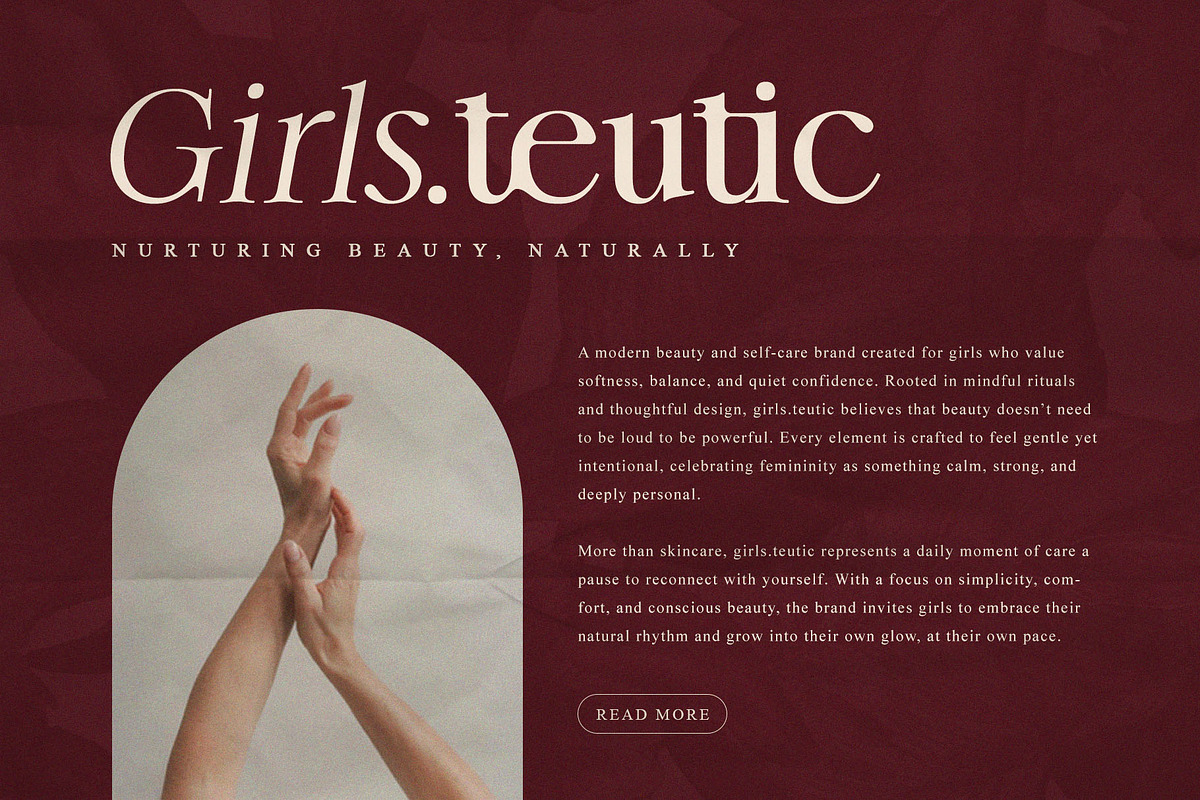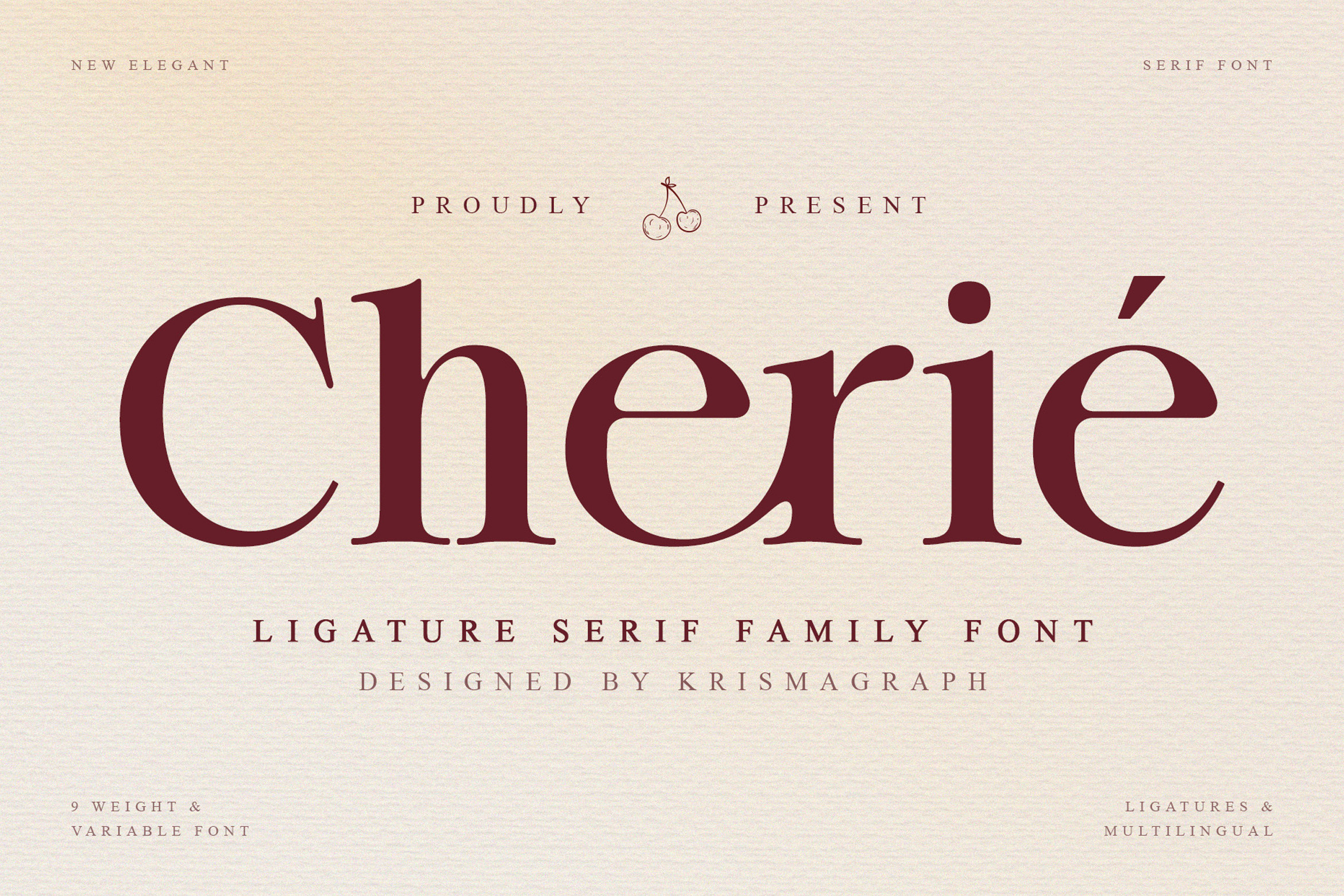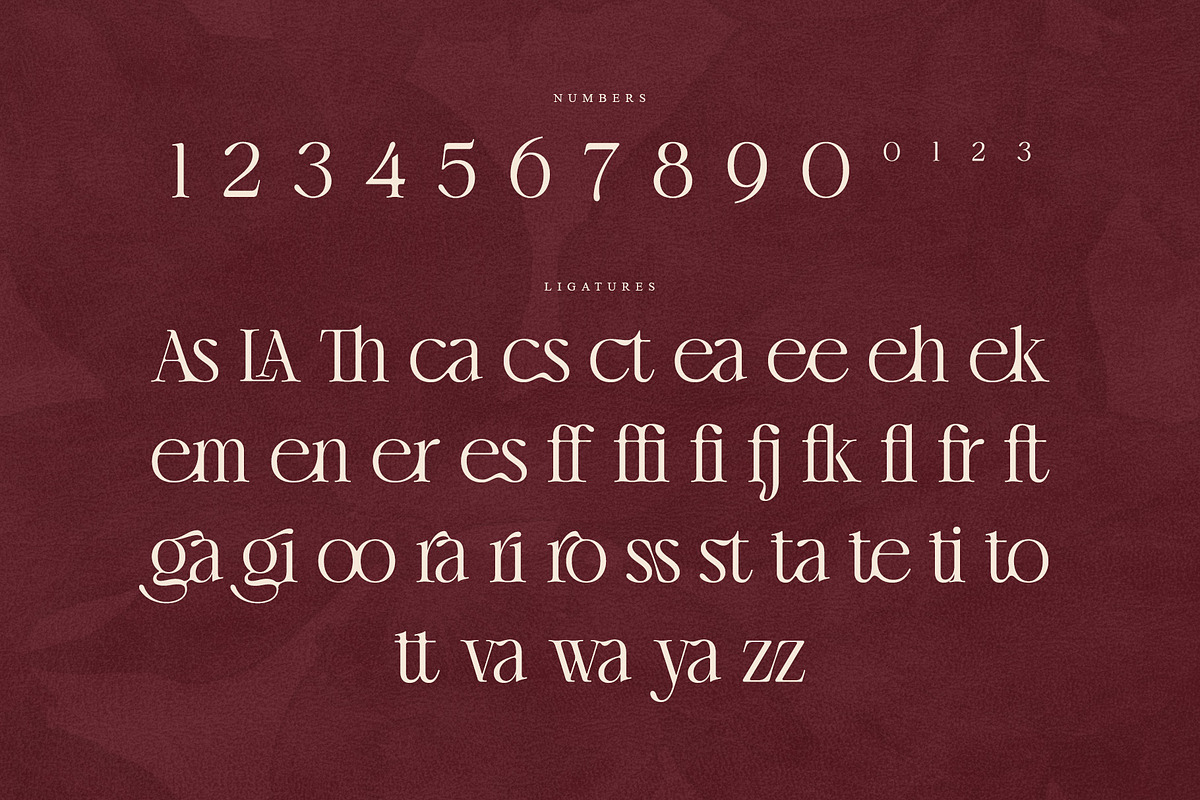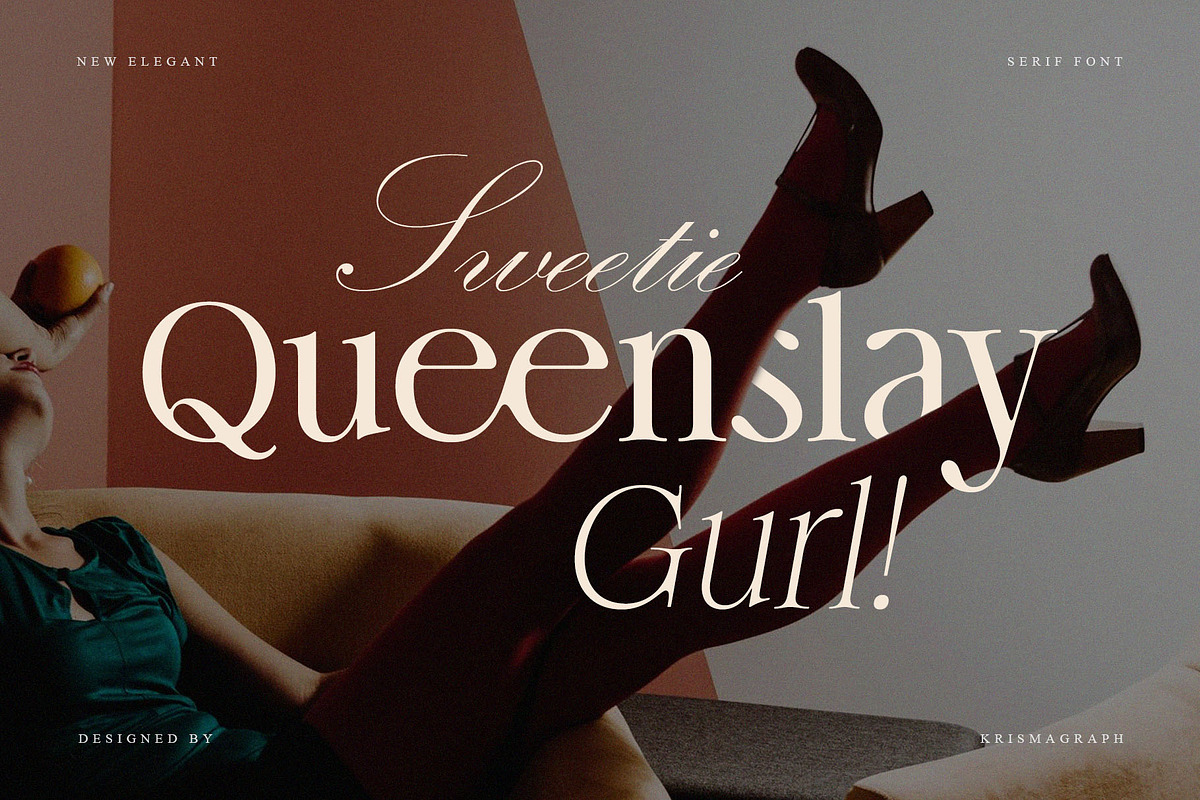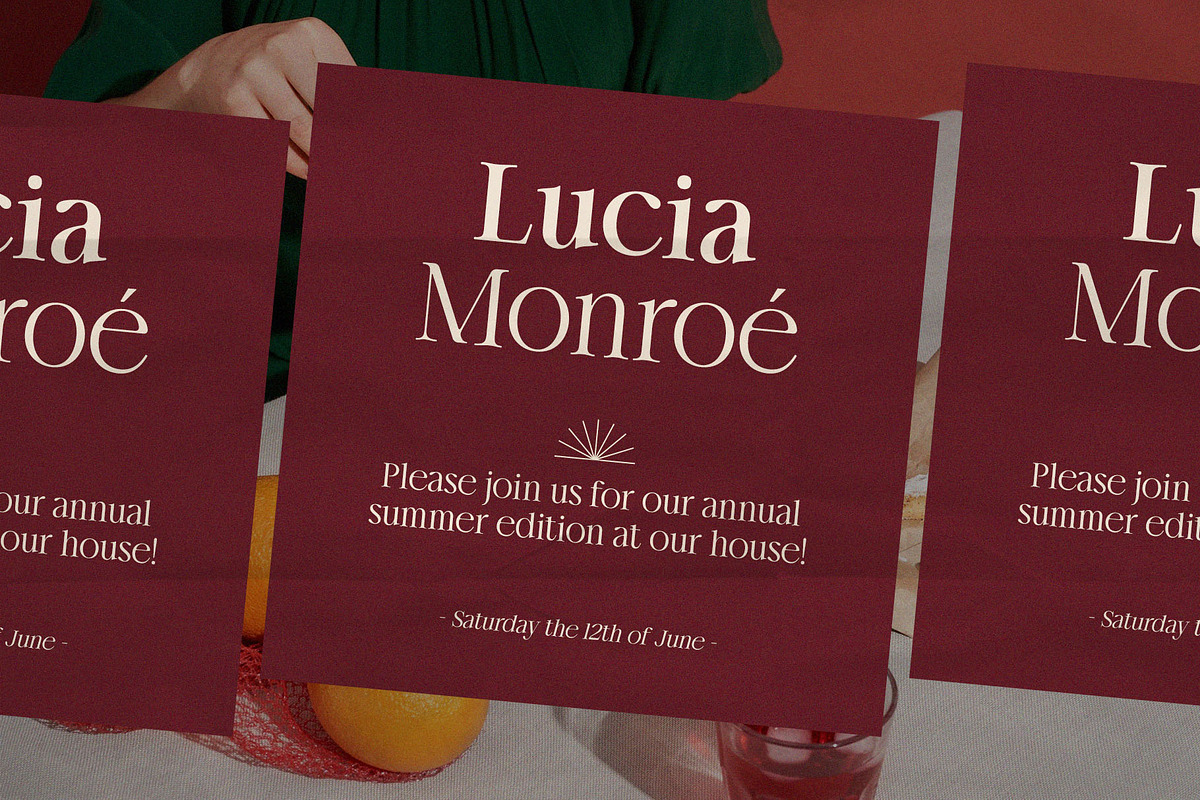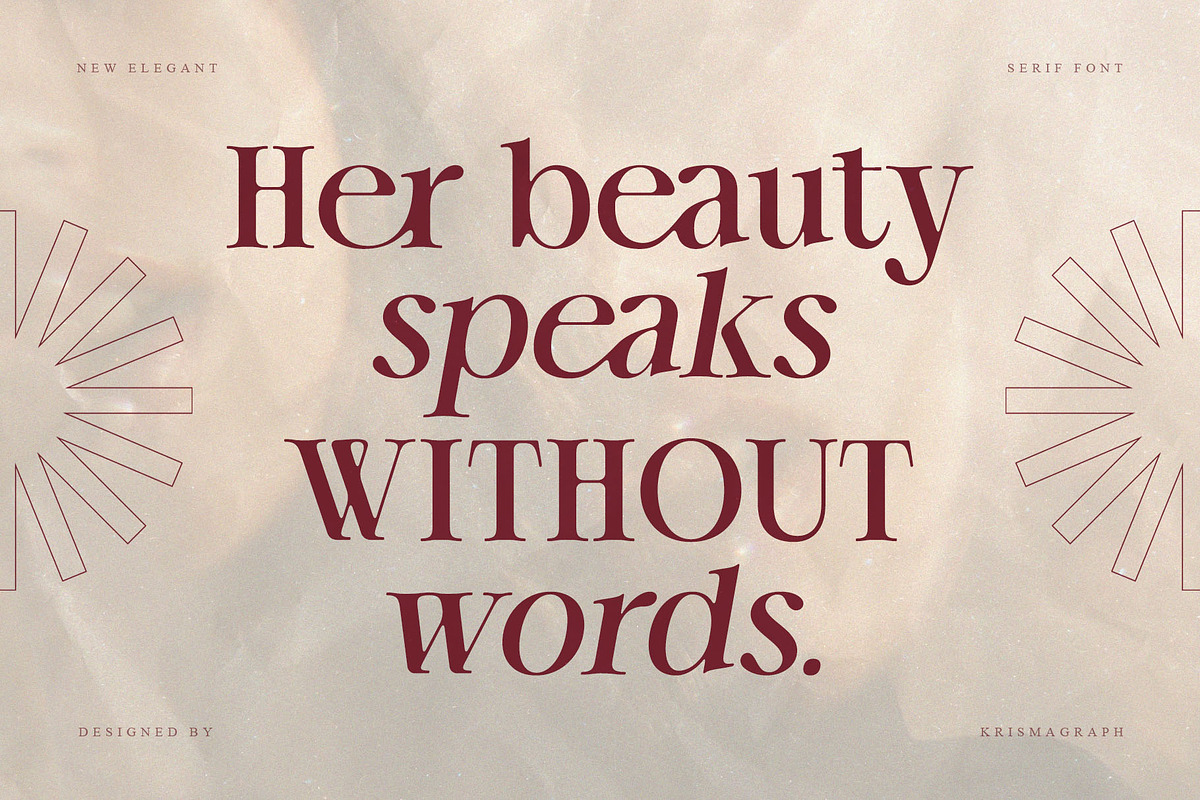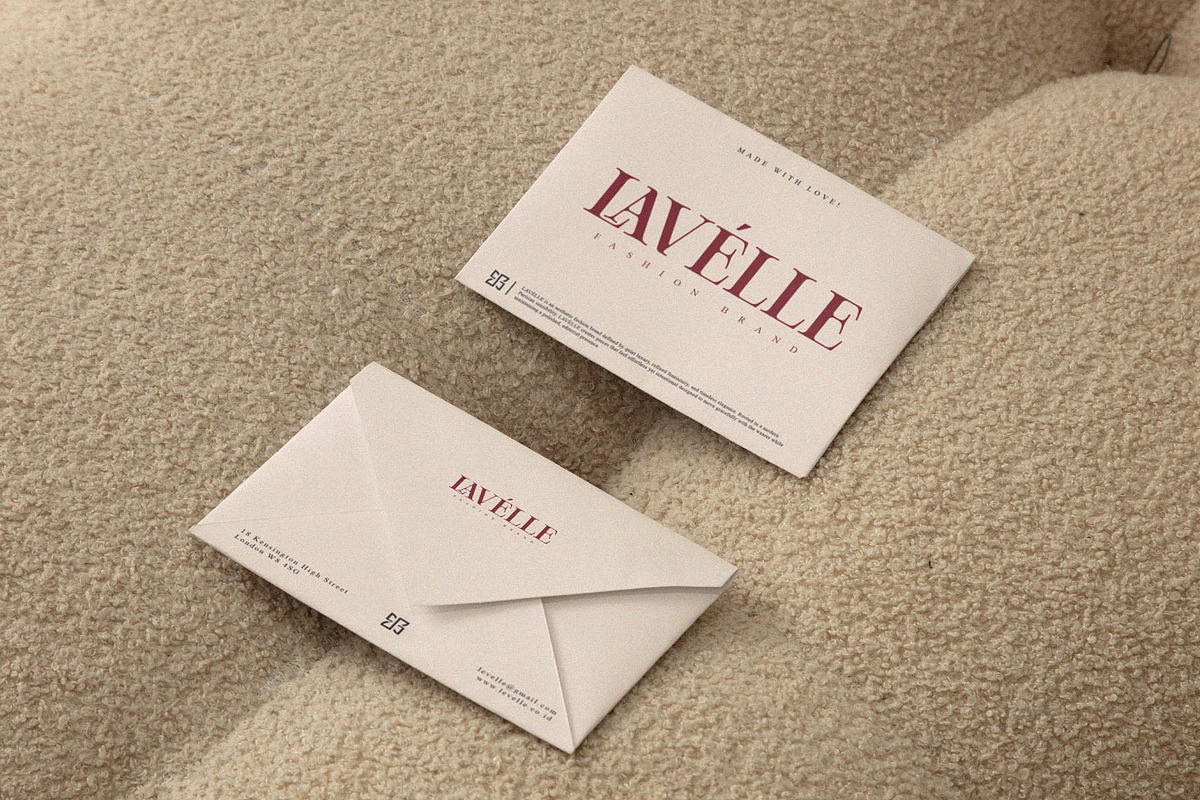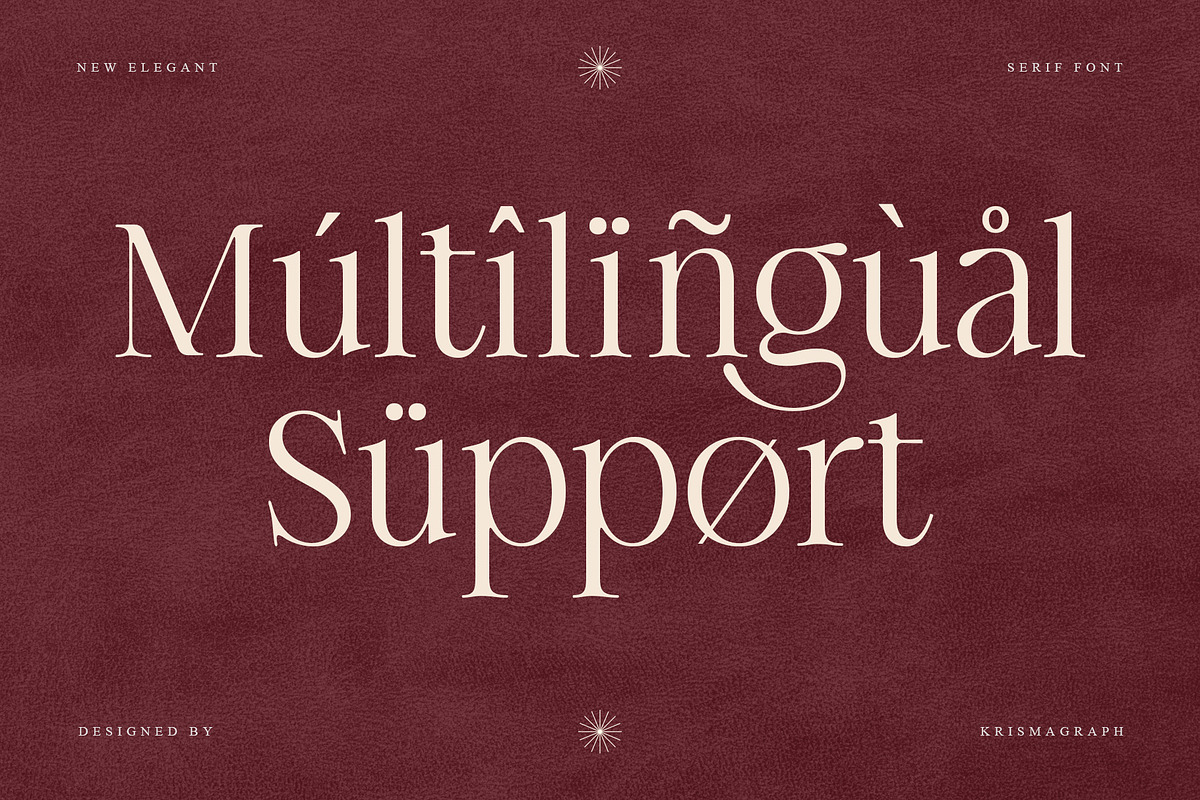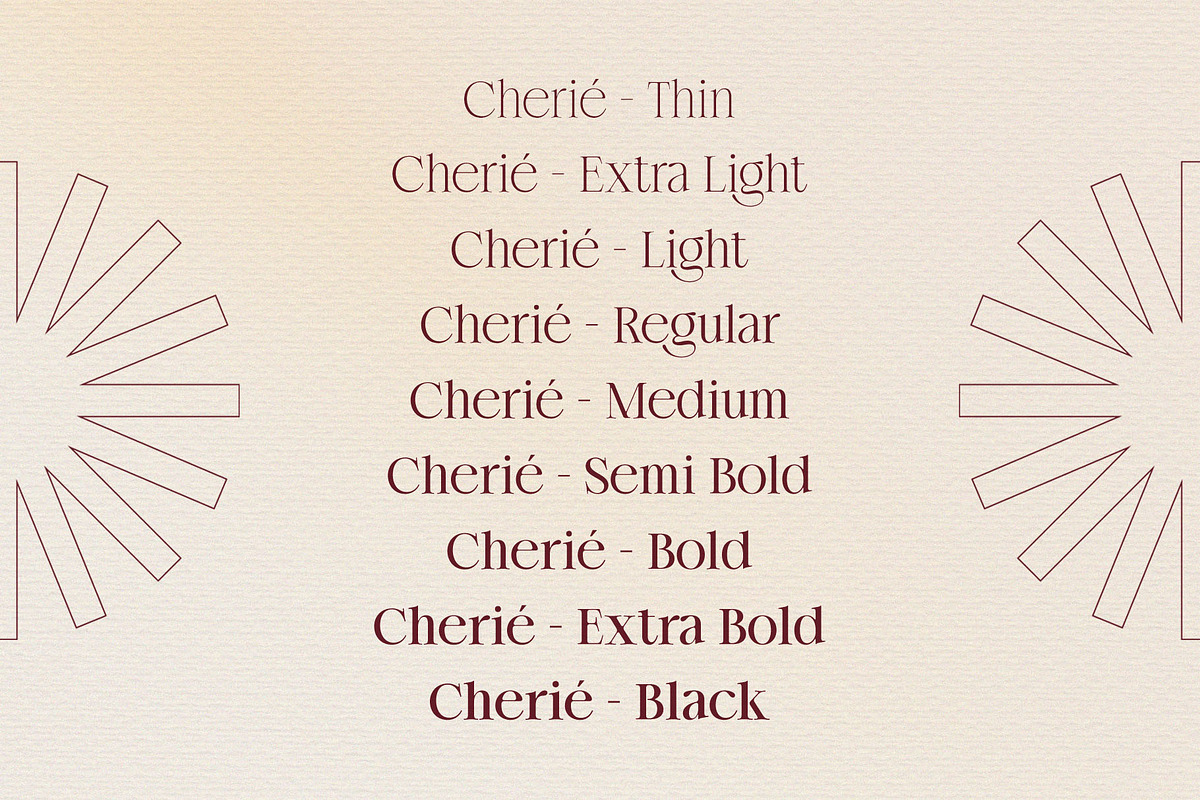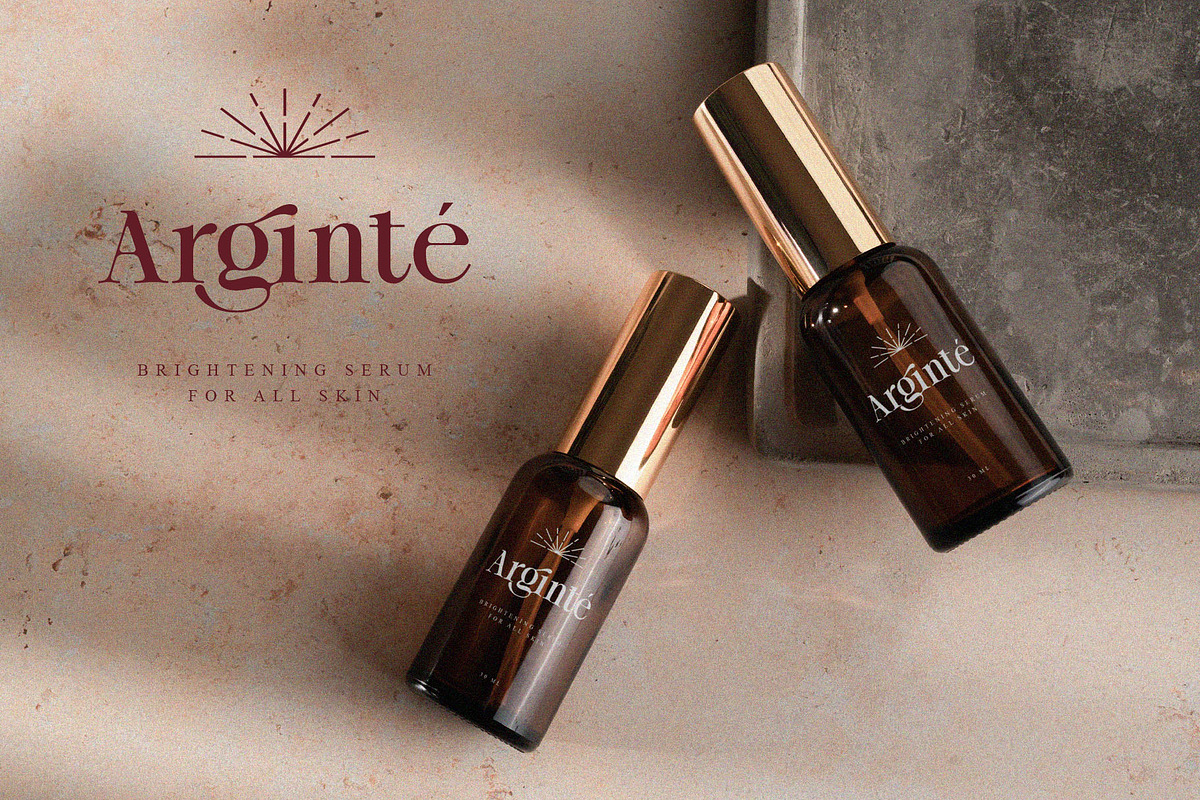
Chérié – Ligature Serif Family Font
Chérié is an elegant ligature serif family font designed with refined proportions, smooth curves, and graceful details. Featuring multiple weights and a variable font option, Chérié offers excellent flexibility for modern typography while maintaining a timeless and sophisticated character.
With its rich ligatures and well-balanced letterforms, this serif family is ideal for branding systems, editorial layouts, logos, packaging, website headers, and premium print materials. Chérié delivers both visual harmony and strong typographic presence across a wide range of design applications.
Chérié is crafted for designers who need a versatile serif family that feels modern, elegant, and highly functional for both display and refined text usage.